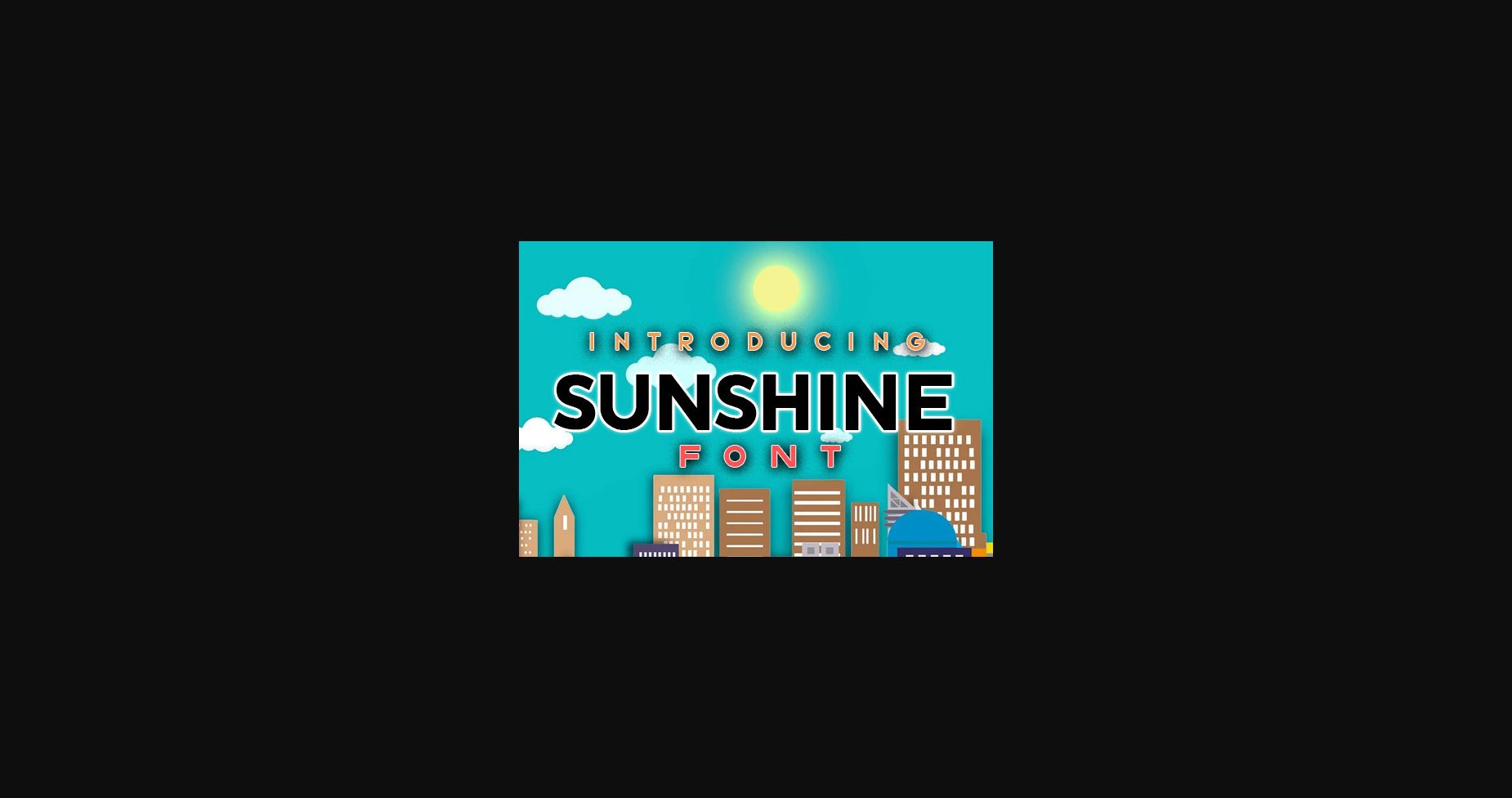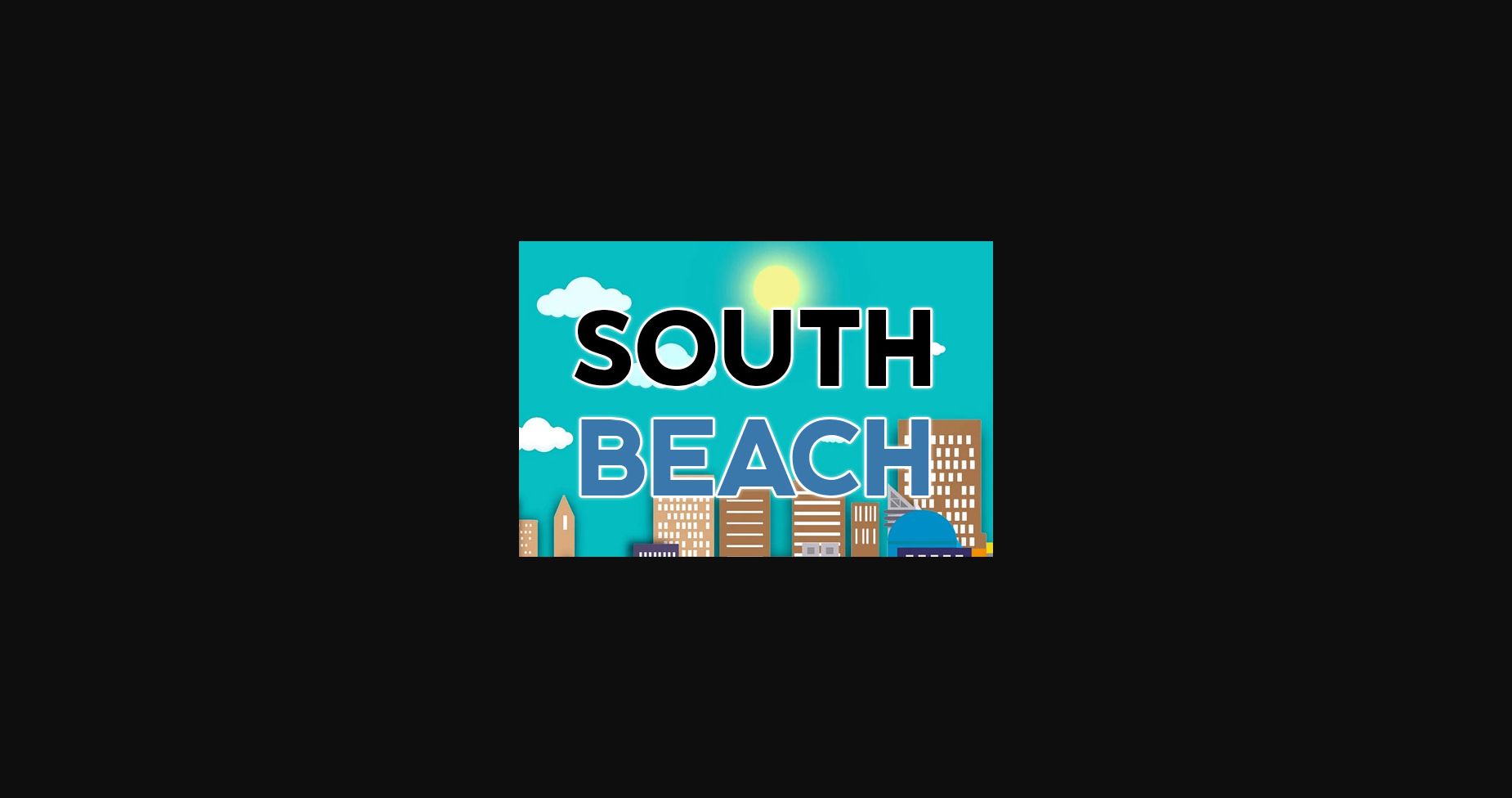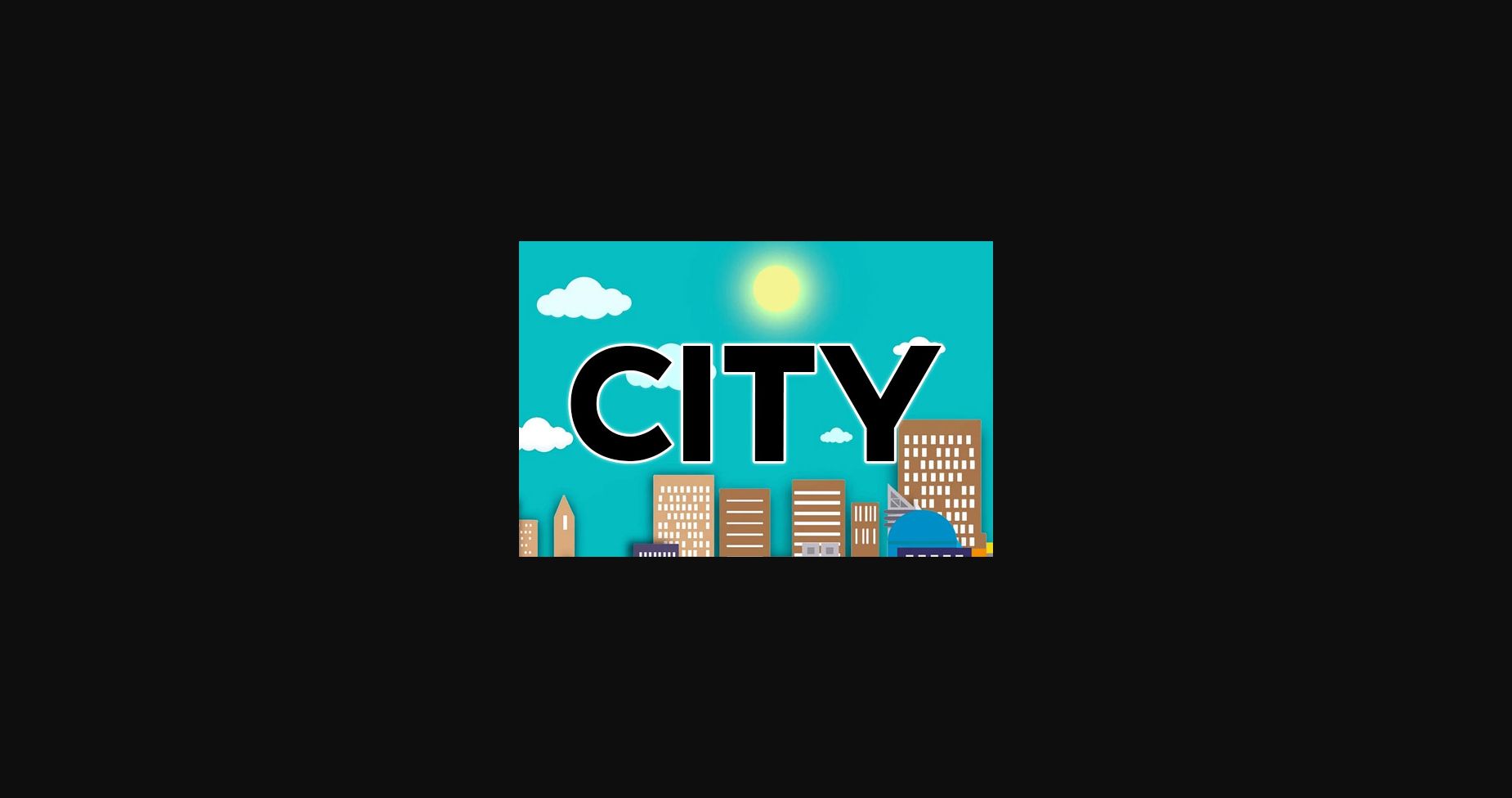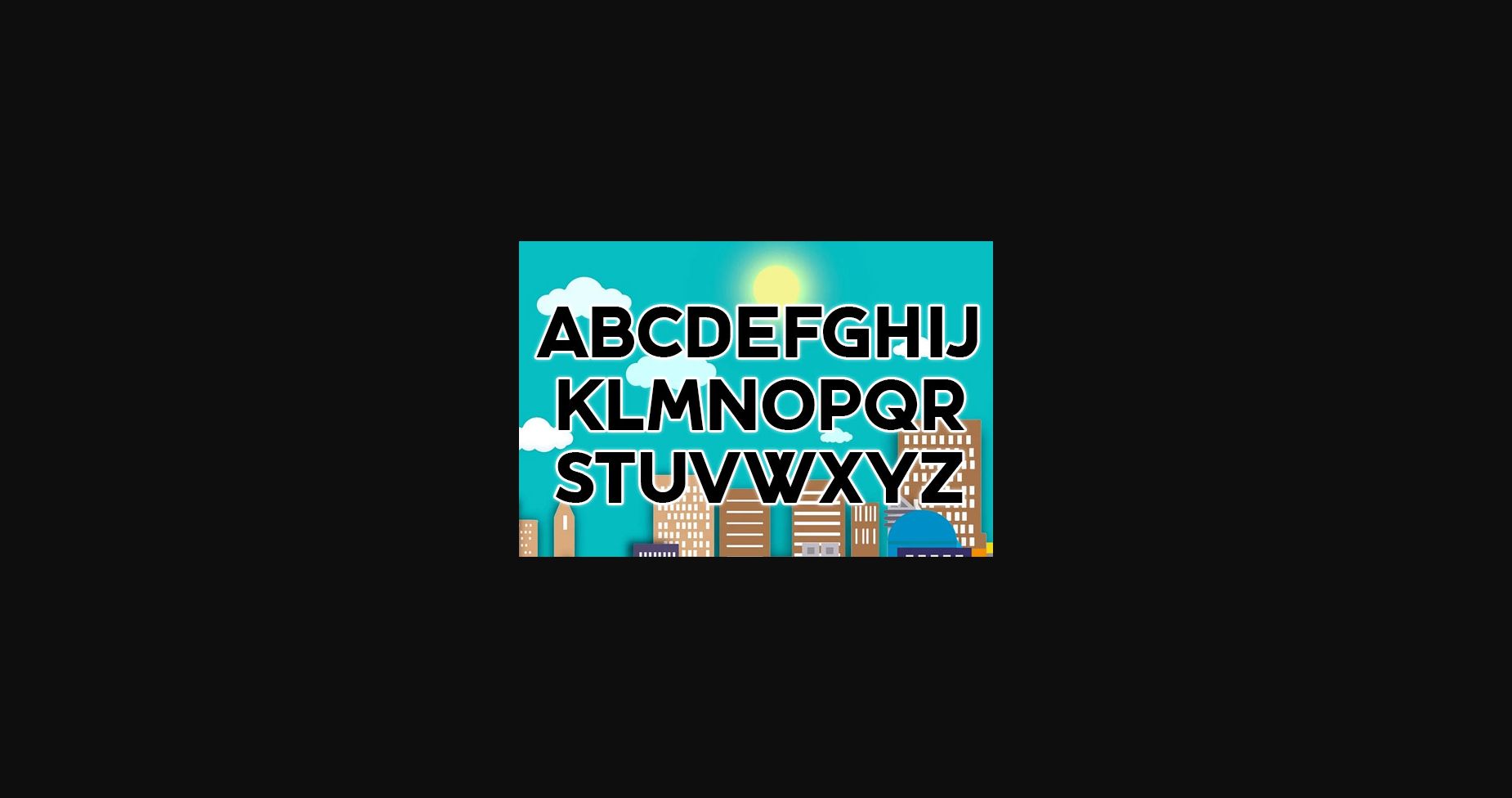
About Sunshine Font
Sunshine is awesome Sans Serif font that will look awesome on any of your designs.
Use this font on posters, flyers, and t-shirts.